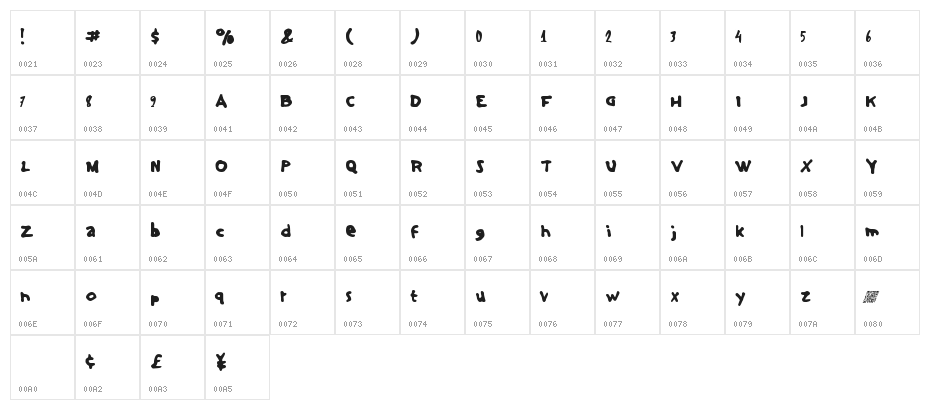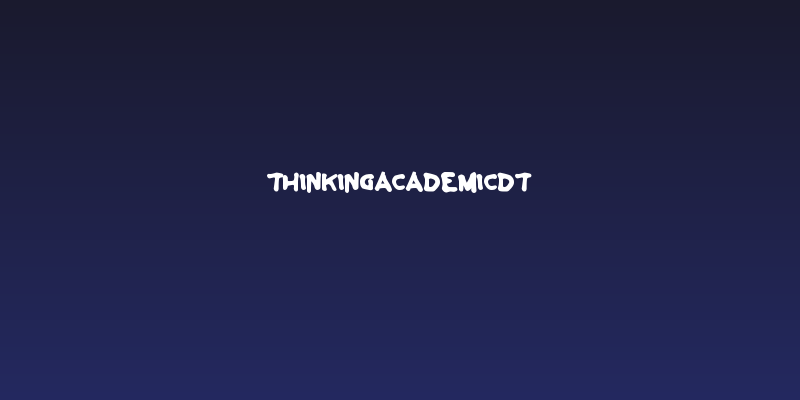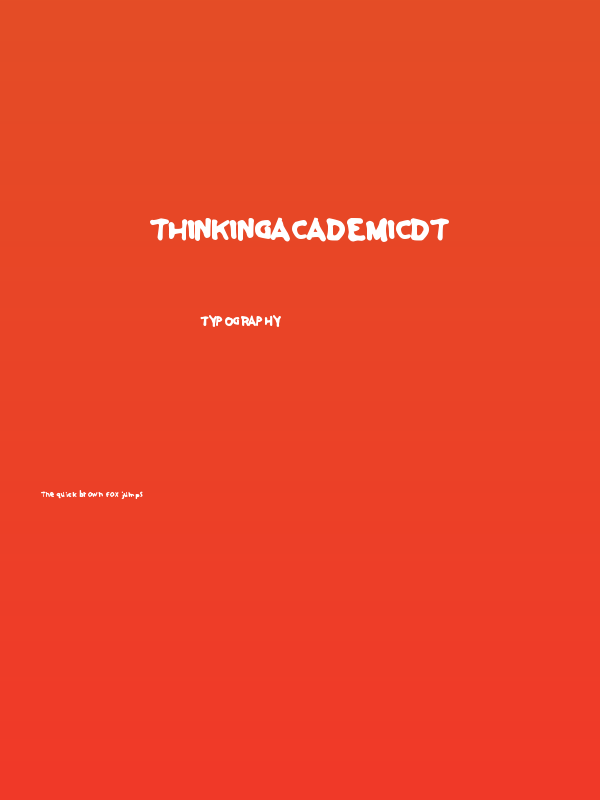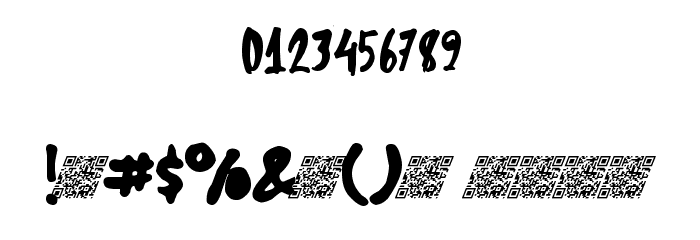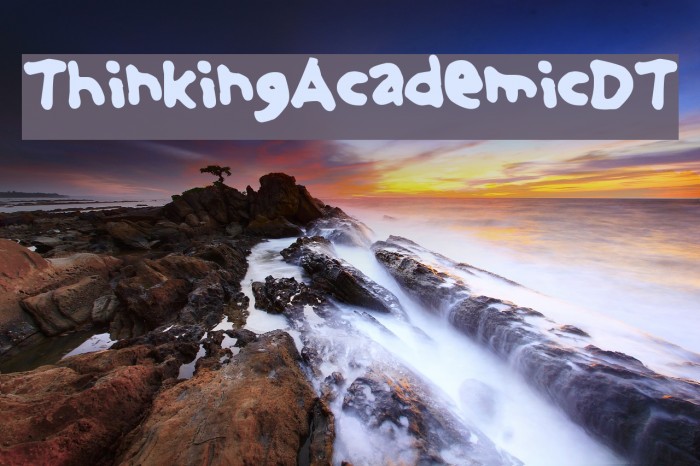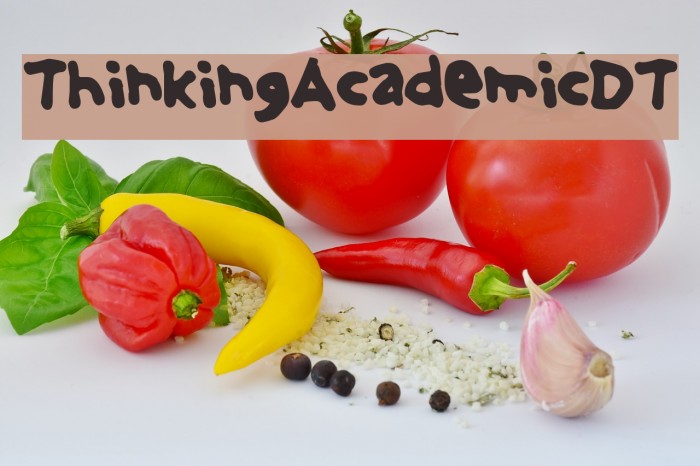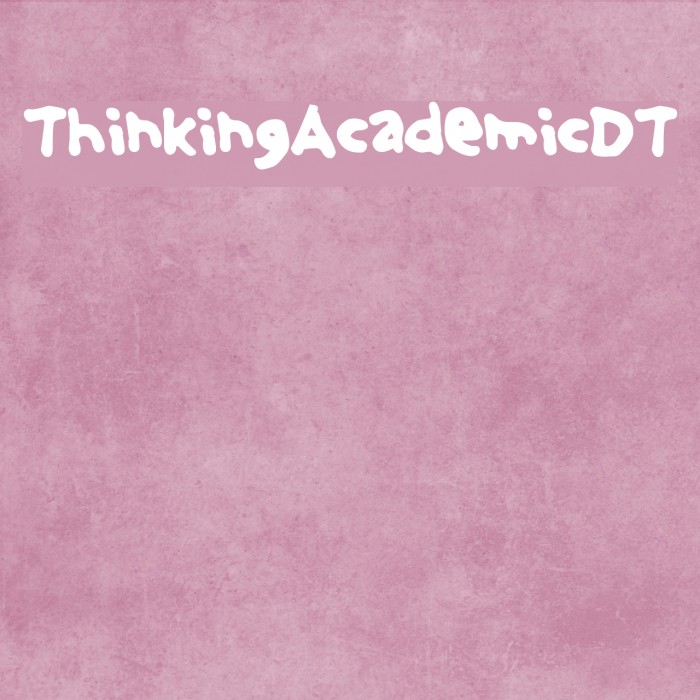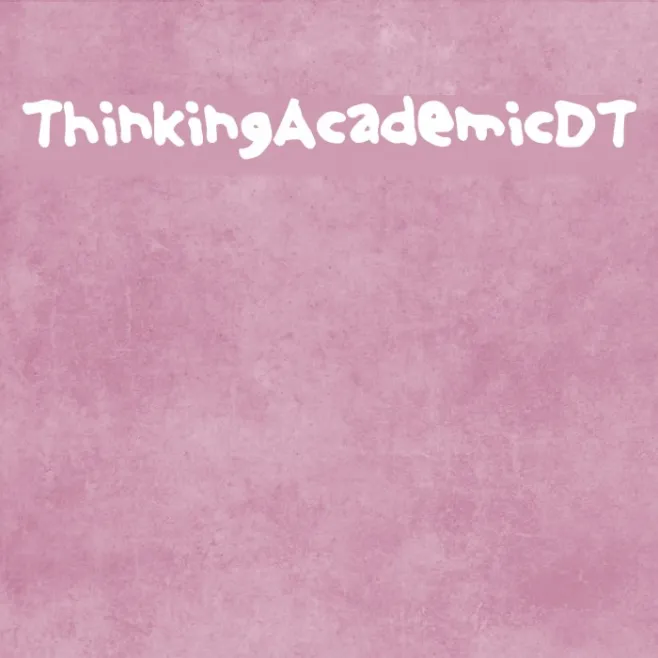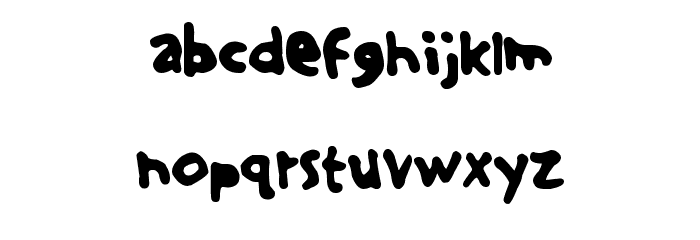
ThinkingAcademicDT Font
ThinkingAcademicDT Description
This font exhibits a playful and informal style, characterized by its bold and slightly irregular letterforms. The uppercase and lowercase letters have a hand-drawn appearance, with rounded edges and varying stroke widths that add a sense of whimsy and creativity. The numbers follow the same playful aesthetic, maintaining consistency across the character set. Special characters are included, enhancing the font's versatility for various design needs. The overall impression is casual and approachable, making it suitable for projects that require a friendly and engaging tone.